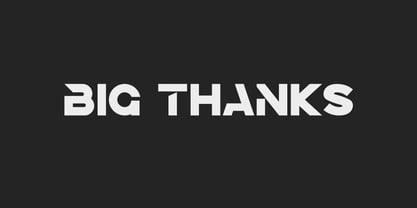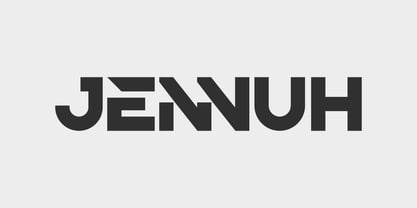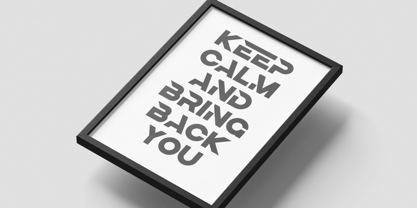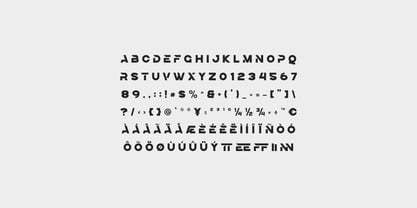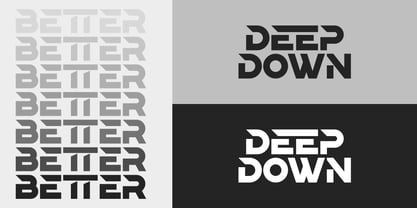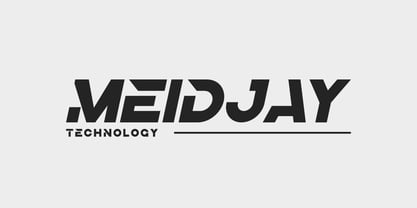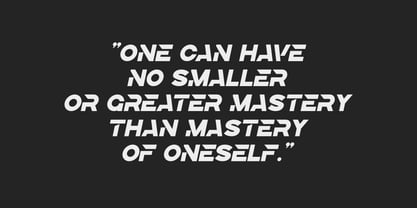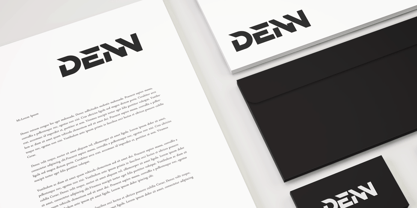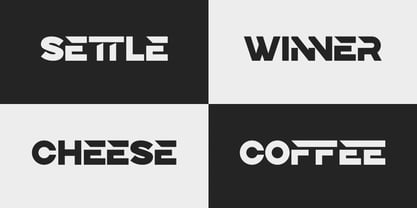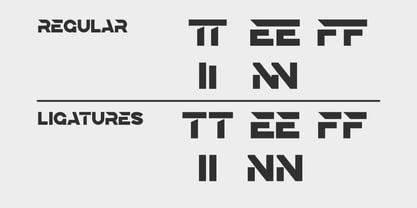
Jennuh
by Artiveko
The Jennuh Font Family was designed by Iwan Alwan and published by Artiveko. Jennuh contains 2 styles and family package options.
Jennuh is a geometric sans serif font with clean lines and modern simplicity. Its balanced shapes and smooth structure make it ideal for branding, web design, logos, and editorial use. Equipped with multilingual support, ligatures, and alternates, Jennuh offers versatility and clarity—perfect for projects that seek a minimalist yet striking visual presence.
Designers: Iwan Alwan
Publisher: Artiveko
Foundry: Artiveko